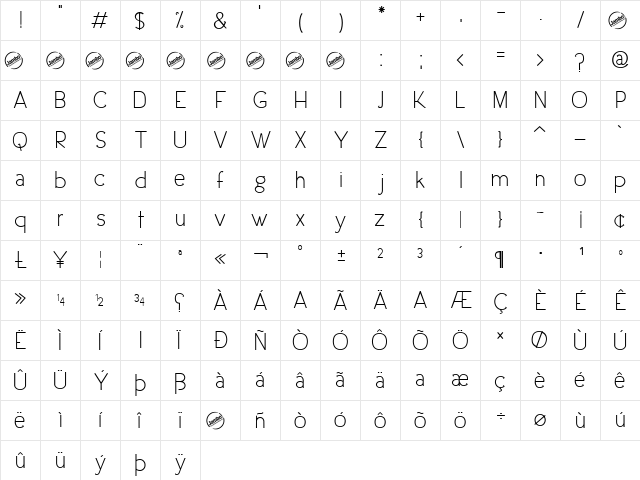
Urban Elegance Regular
Design Context for Urban Elegance Typeface
Urban Elegance offers clean, dependable letterforms without strong stylistic allegiance, making it a practical choice for designers who need flexibility.
Pro Tip: Pair Urban Elegance with a font of contrasting weight or personality to build a more expressive typographic hierarchy.